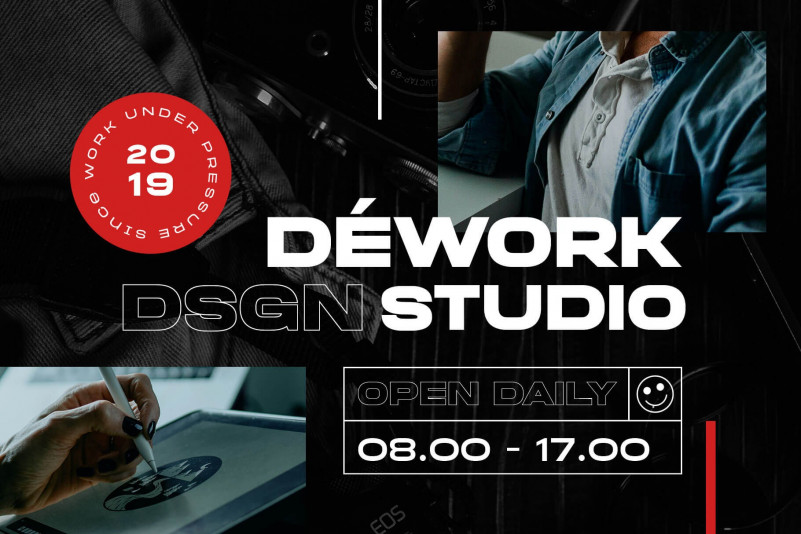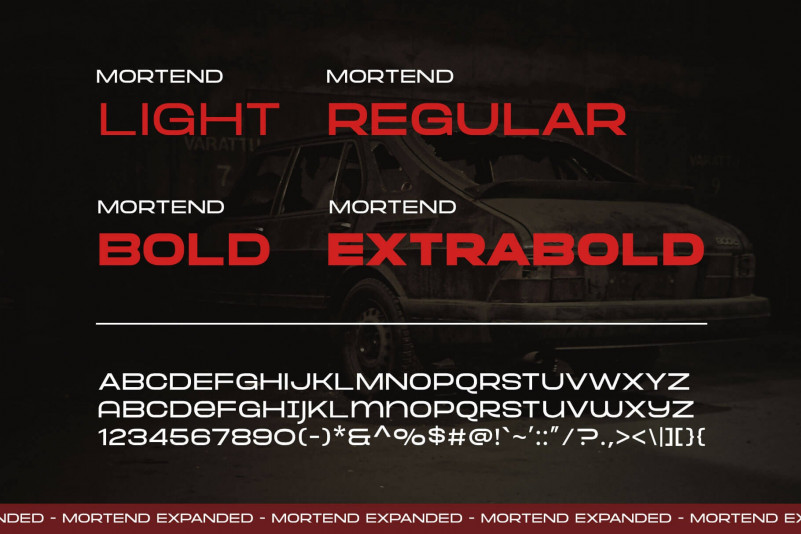
Mortend Font
Mortend Sans Serif Font
A masculine vintage bold display font with a sharp bite. Inspired by the brutalism poster and minimalism design which has been trending nowadays, and gives you more chance to express your creativity. This font family brings a strong feel yet elegant look that you can use for many purposes.
Mortend is an all-caps font with the different letterforms of ‘small-caps’ that you can combine at will. This family is highly recommended for display or headline on your poster, flyer, apparel, motion graphic, logotype, signage, packaging, labels, and more! The regular and light one, also good for short body text and quotes.